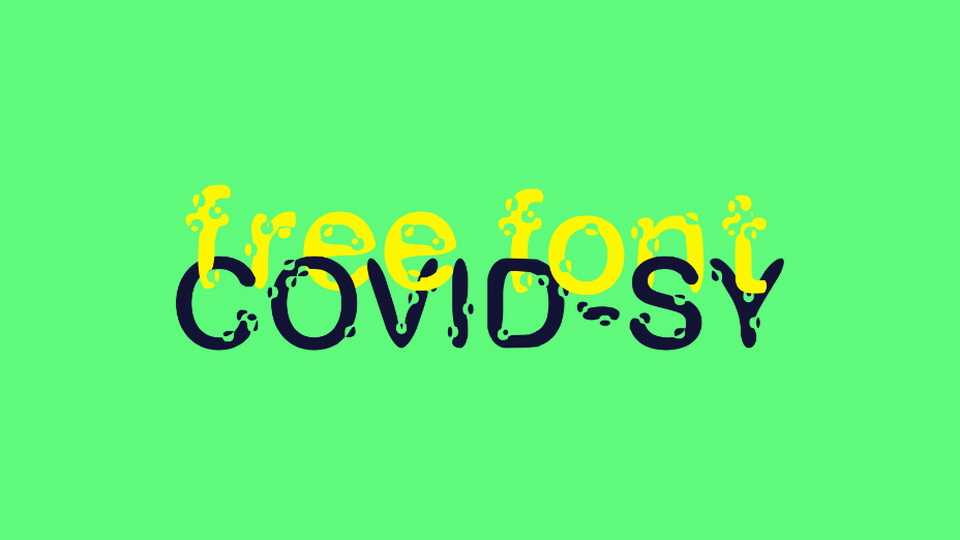
Download Covid-SY font, a distorted display typeface designed for posters, banners and headlines.C ovid-SY font is dedicated to current global problems.